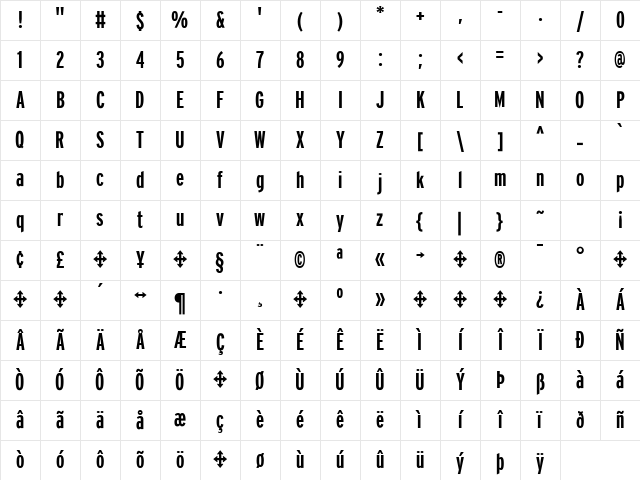
Interstate Bold
Copyright: Copr. 1994, Tobias Frere-Jones. Designed by Tobias Frere-Jones. Produced by The Font Bureau, Inc.
Foundry: Copr. Tobias Frere-Jones. Designed by Tobias Frere-Jones. Produced by The Font Bureau, Inc
Complete Interstate Bold glyph index. Displaying only characters natively supported by Interstate Bold font.
Design Context for Interstate
Interstate is a composed and adaptable typeface that performs quietly and consistently across a wide range of design contexts. Its bold stroke weight gives it real presence on the page.
Who designed the Interstate Bold font?